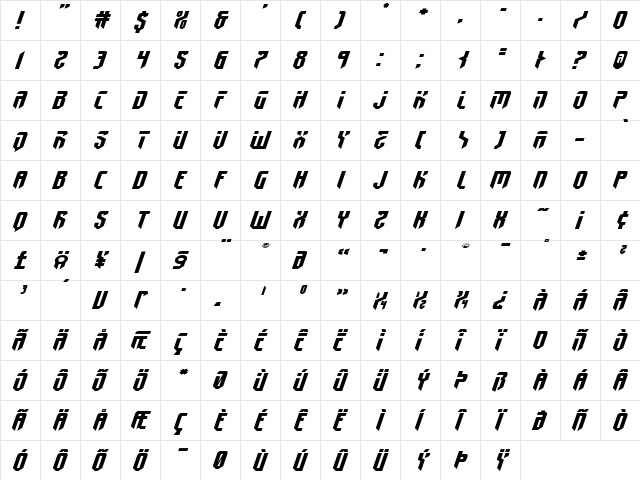
Fedyral II Extra-Expanded Italic Extra-Expanded Italic
Design Context for Fedyral II Extra-Expanded Italic Typeface
Fedyral II Extra-Expanded Italic is a composed and adaptable typeface that performs quietly and consistently across a wide range of design contexts. Its italic angle brings a sense of urgency and motion to the letterforms.